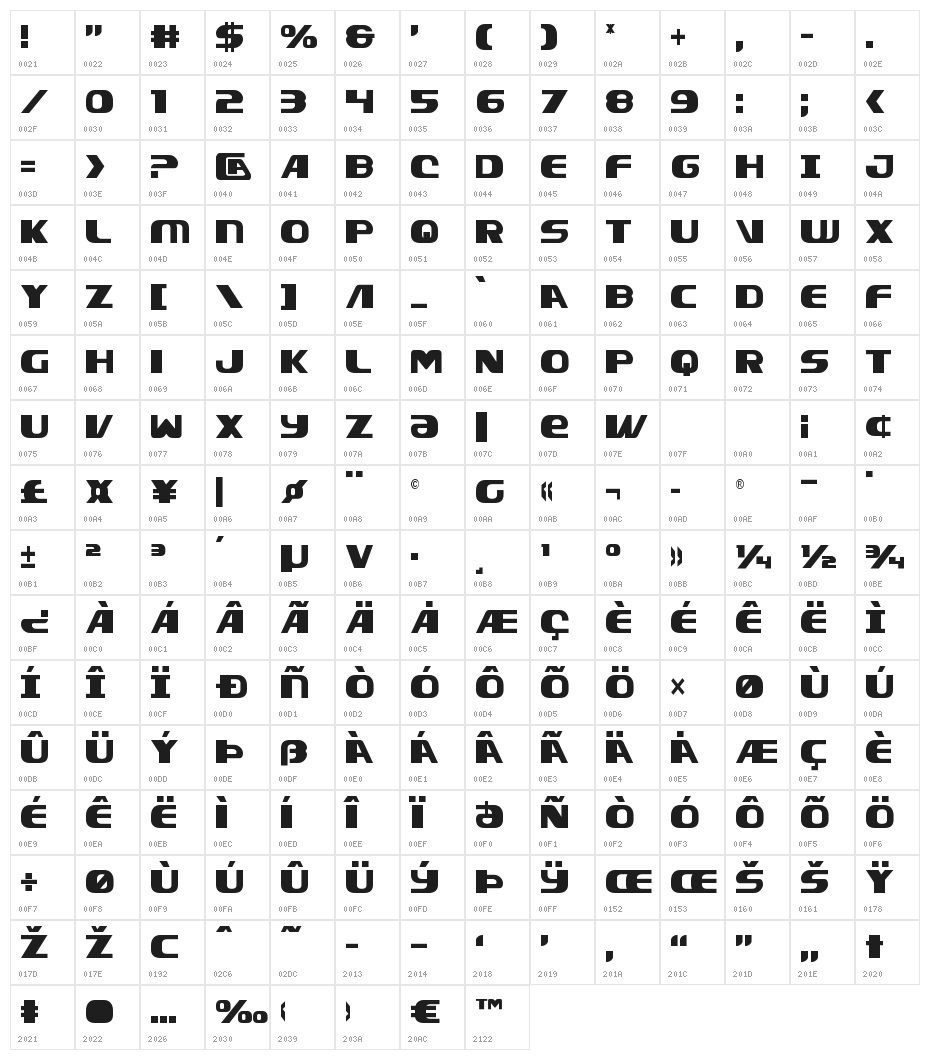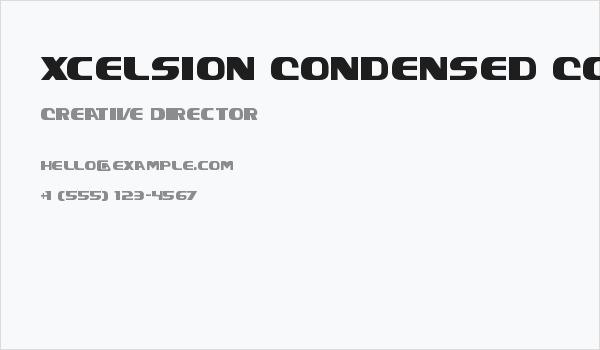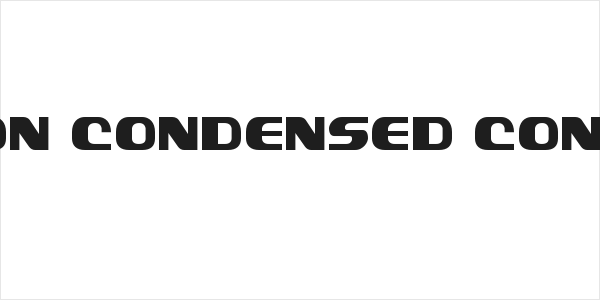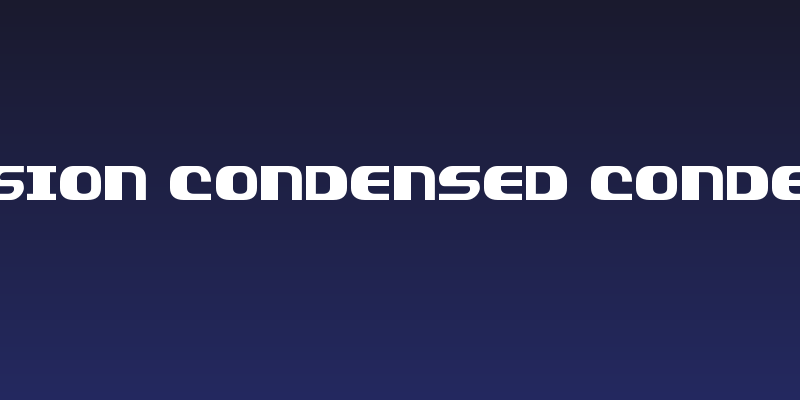
Xcelsion Condensed Font
Xcelsion Condensed Description
This font features a bold and modern design with a distinctly futuristic aesthetic. The characters are condensed, giving them a compact appearance that is both striking and efficient in space usage. The uppercase letters have a uniform height, while the lowercase letters maintain a consistent style that complements the uppercase set. The numbers are bold and clear, ensuring readability. Special characters are designed with the same boldness and modern flair, making them suitable for various design applications. The overall style is sleek and contemporary, making it ideal for projects that require a modern and impactful look.
| Proposed Projects | Ideal for branding, advertising, posters, and any project needing a modern and bold typeface. |